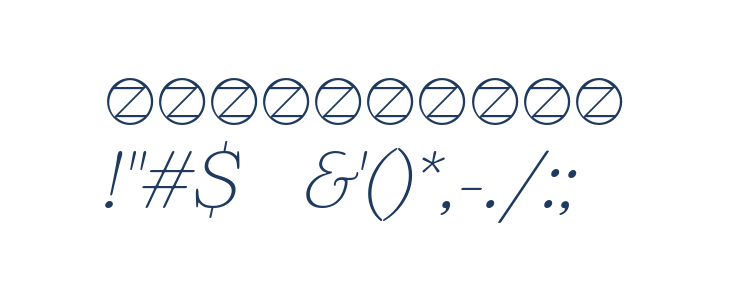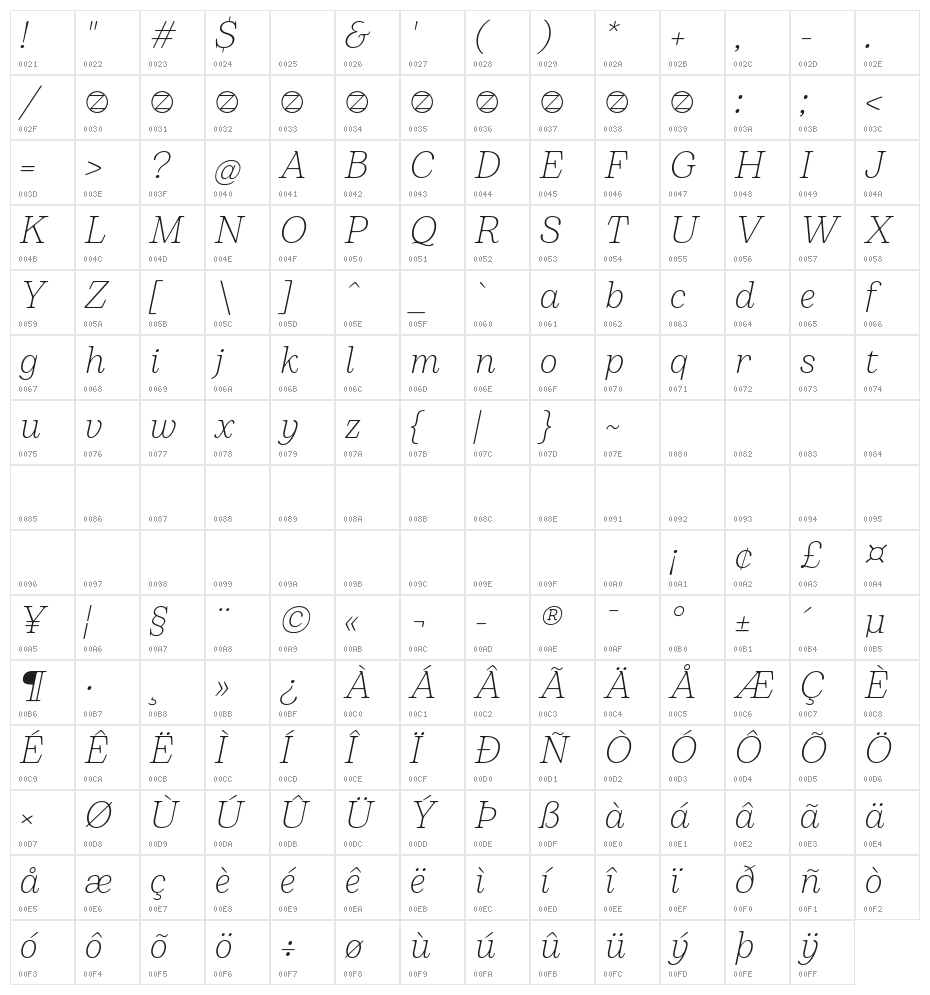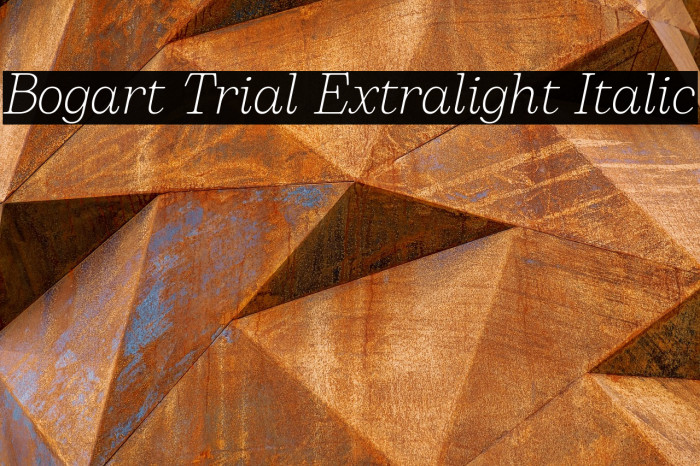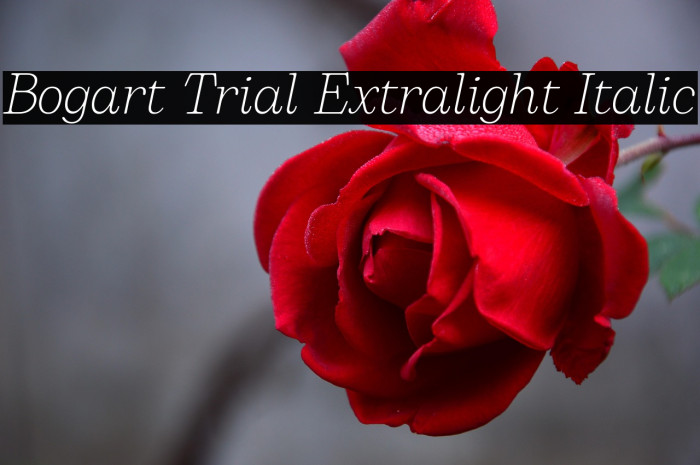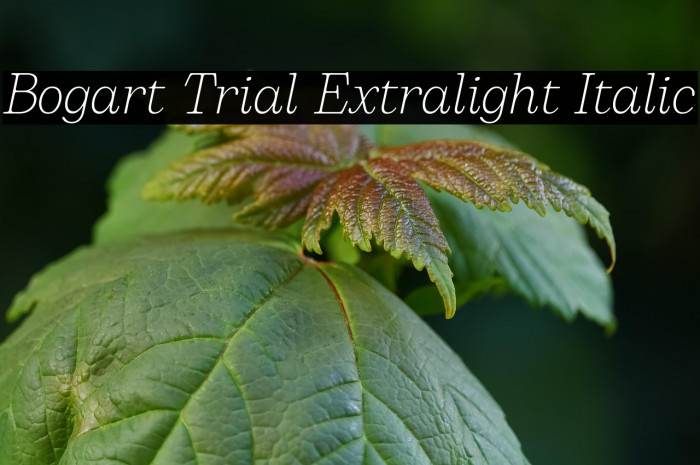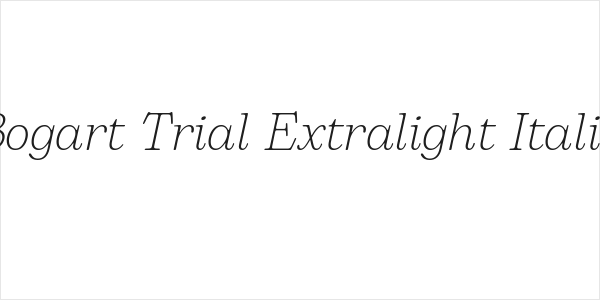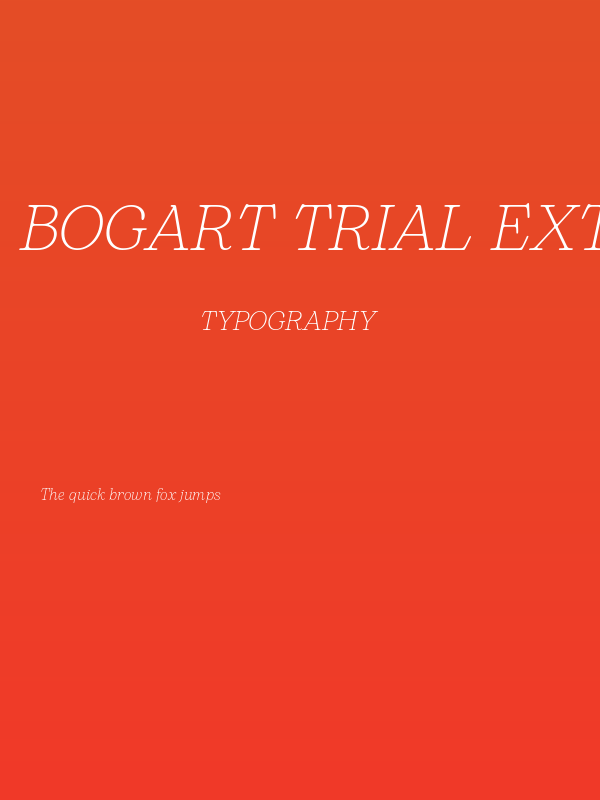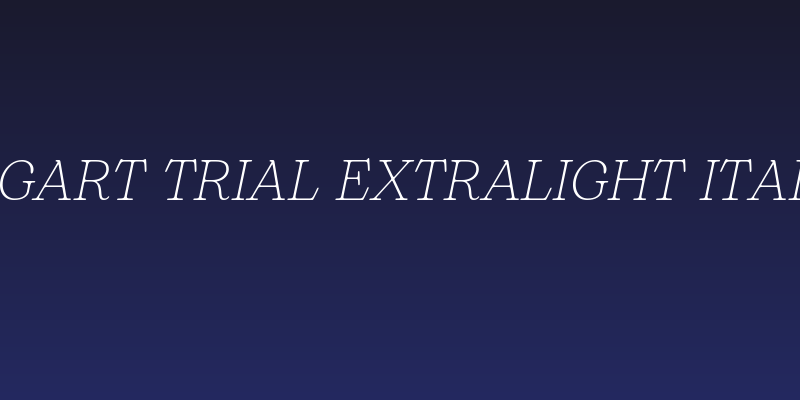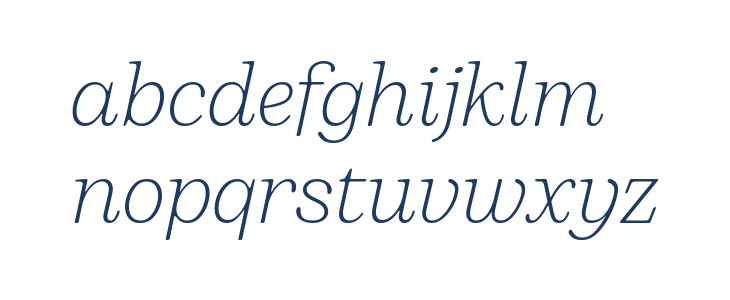
Bogart Trial Extralight Italic Font
Bogart Trial Extralight Italic Description
This elegant typeface features a refined and sophisticated design with an extra light weight and italic style. The characters are gracefully elongated, with a gentle slant that adds a sense of movement and fluidity. The strokes are thin and delicate, providing a high level of contrast that enhances readability while maintaining a stylish appearance. The font's overall aesthetic is modern yet timeless, making it suitable for a variety of applications. Its clean lines and subtle curves give it a professional and polished look, ideal for projects that require a touch of elegance.
| Proposed Projects | Ideal for wedding invitations, luxury branding, fashion magazines, and elegant website headers. |